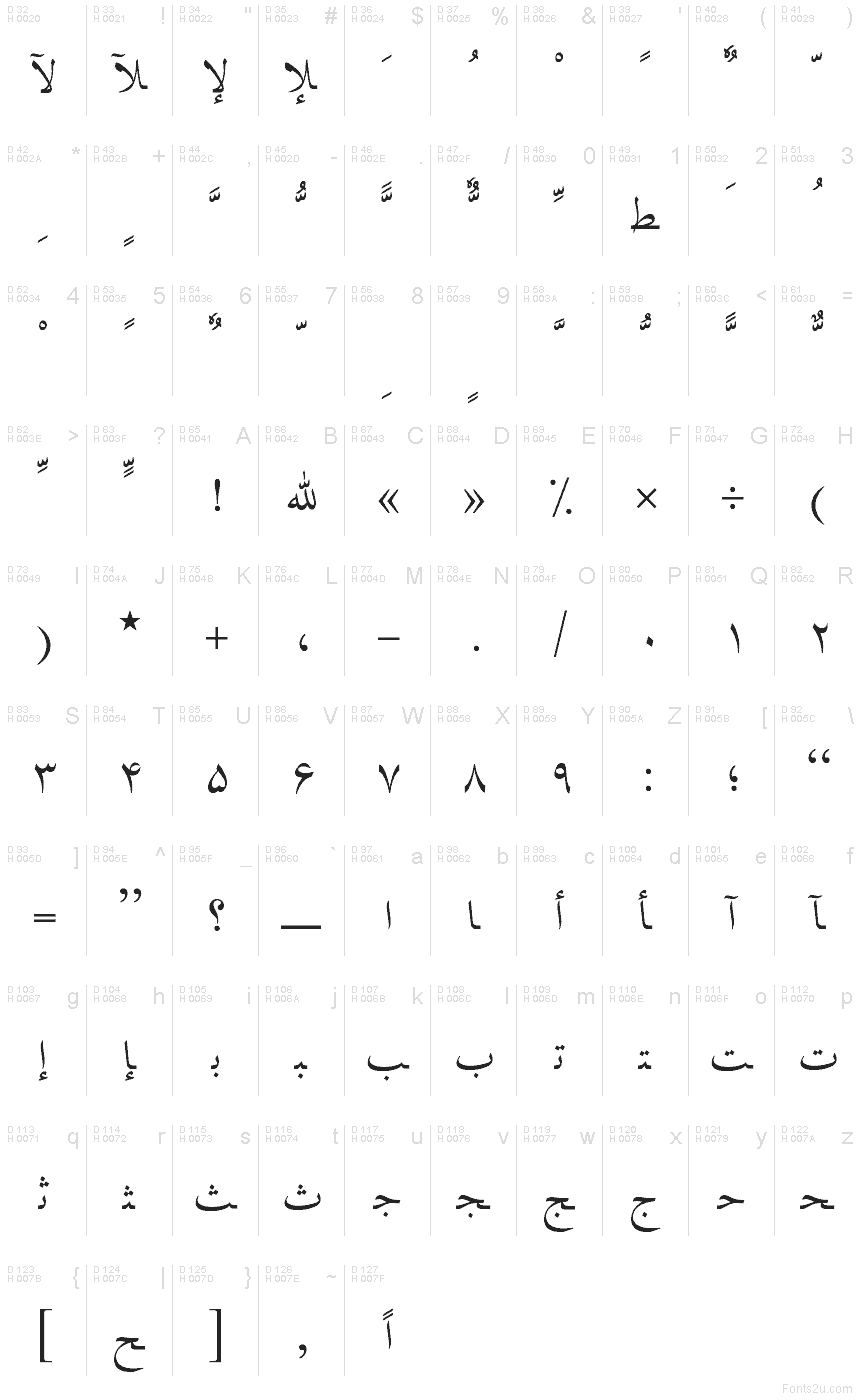
pErSiAnNaSkHSsK Alt Regular
pErSiAnNaSkHSsK Alt font is a free Arabic handwriting font with segments that appear slightly broken apart. Each letter has a striking identity of its own, making identifying each one a natural task for the reader and maintaining full readability even when used at small sizes.
Available for instant use, pErSiAnNaSkHSsK Alt is good for labels, posters, apparel items, packages, logos, video editing applications, and more. Try it with tarot card designs or bring some cultural meaning to your business cards.